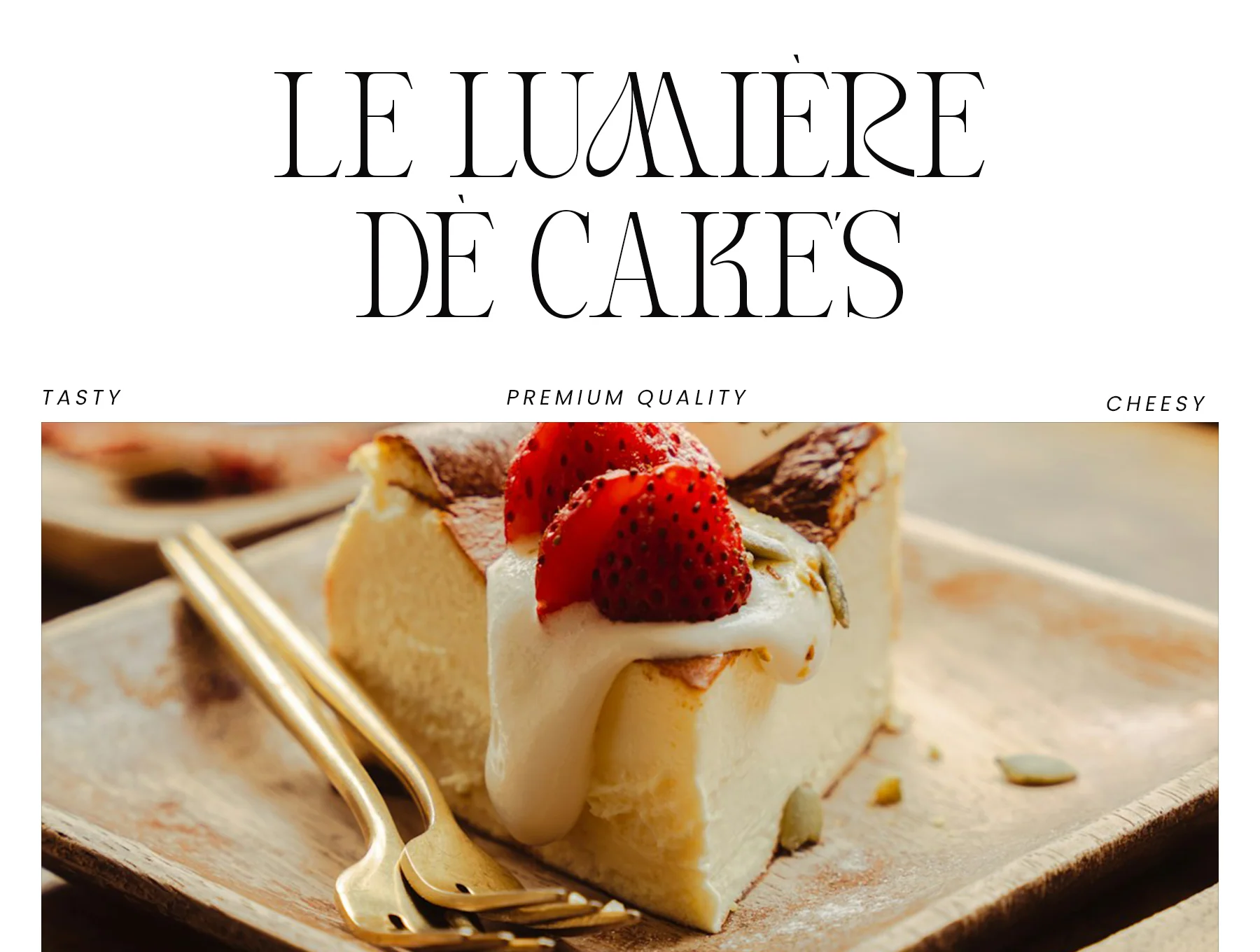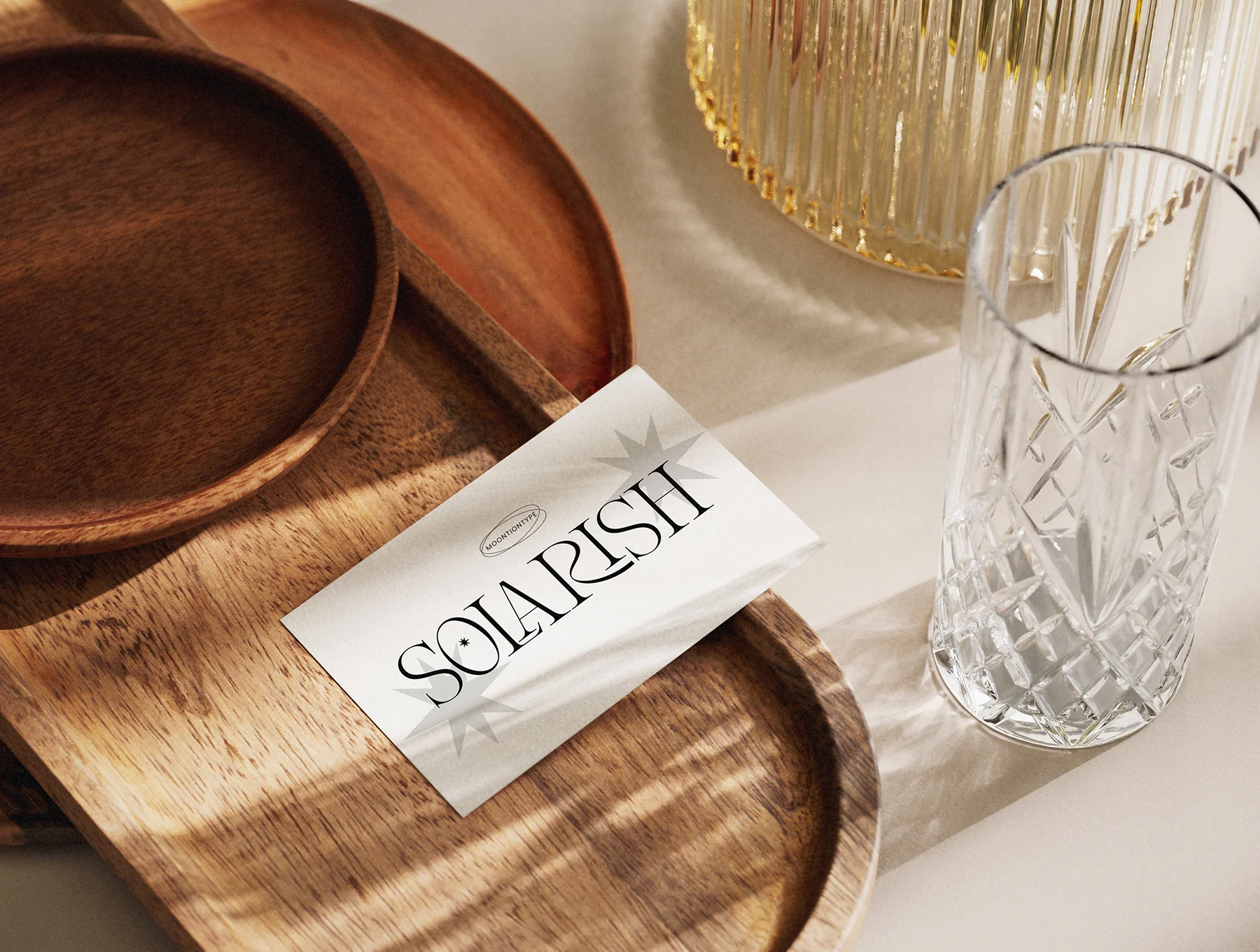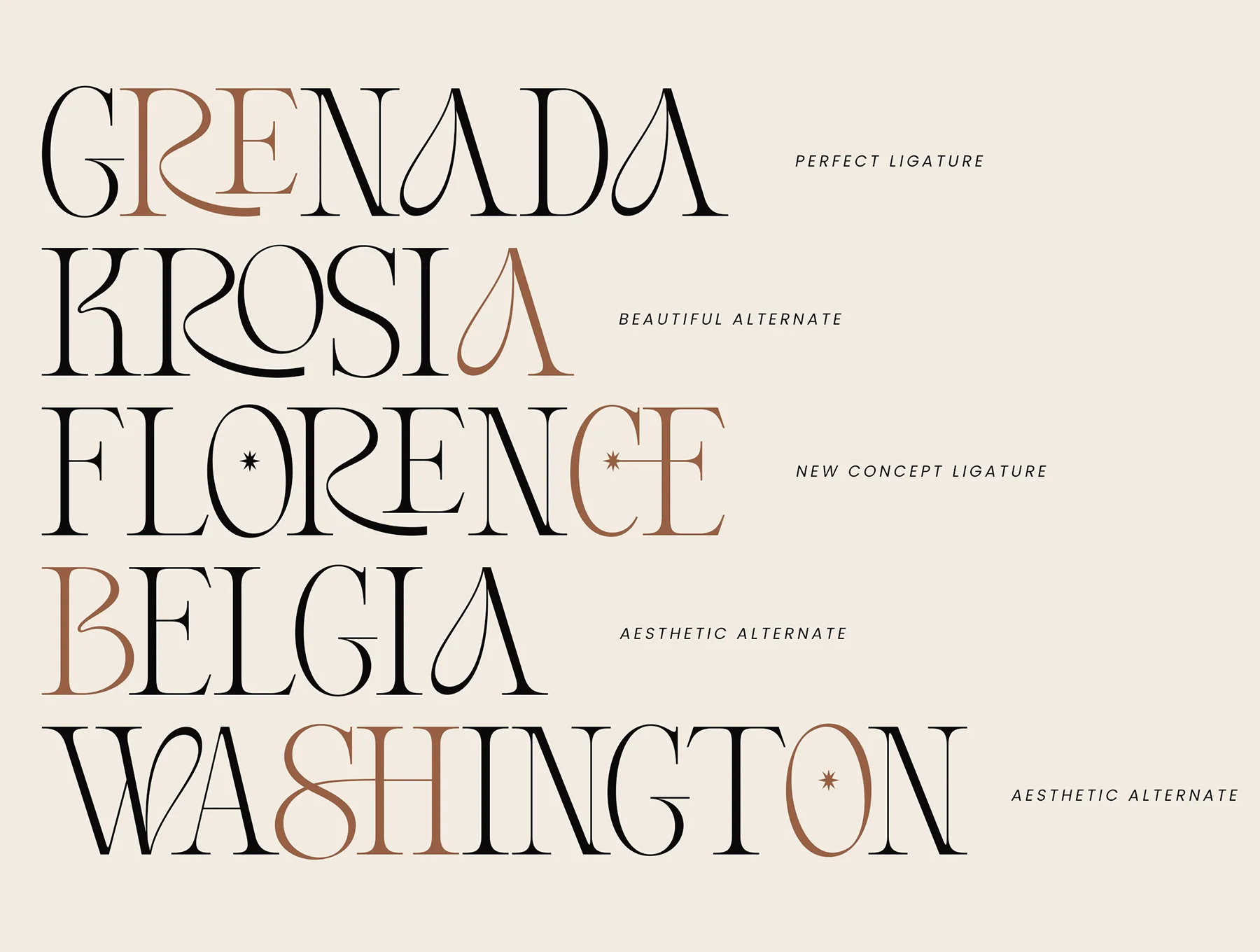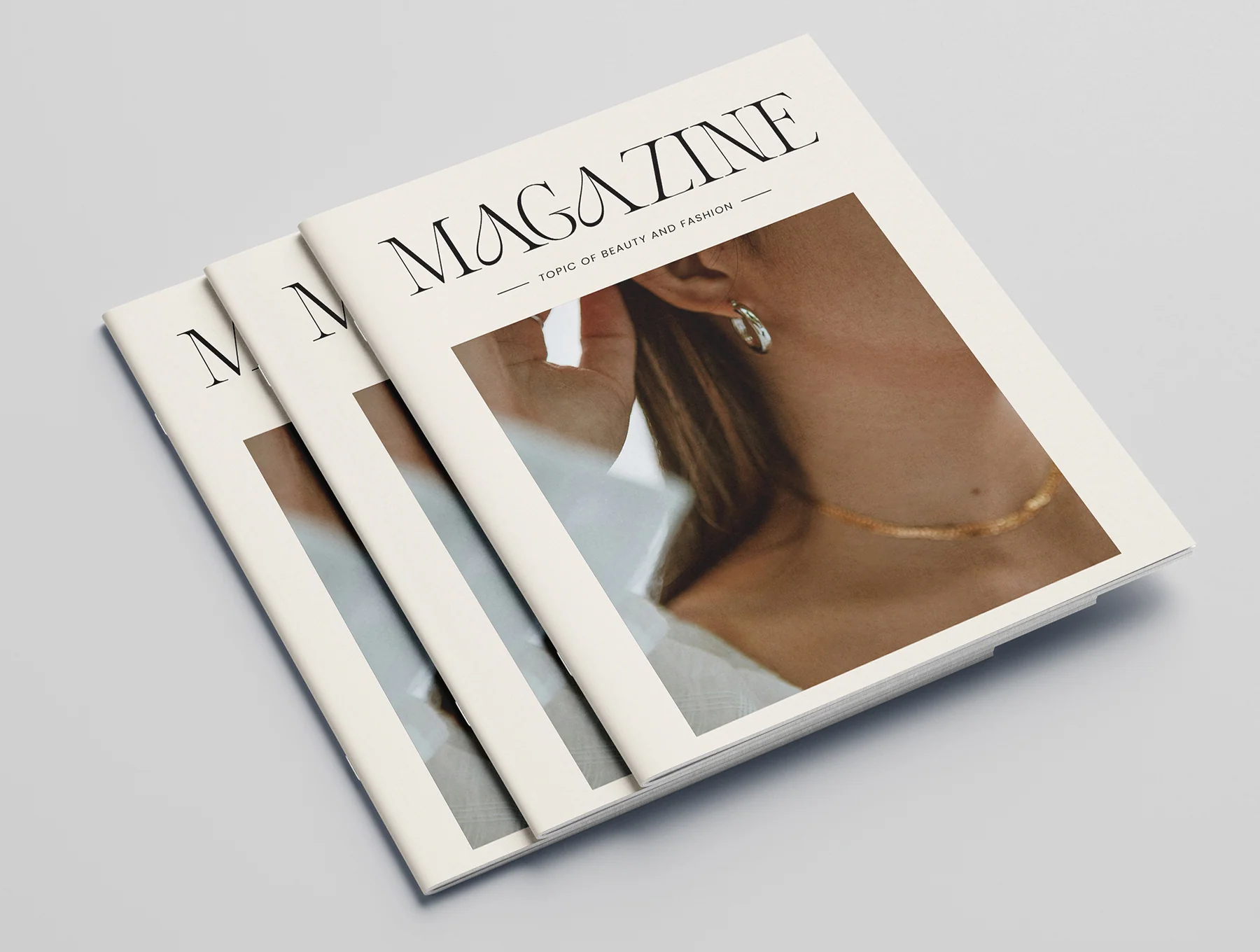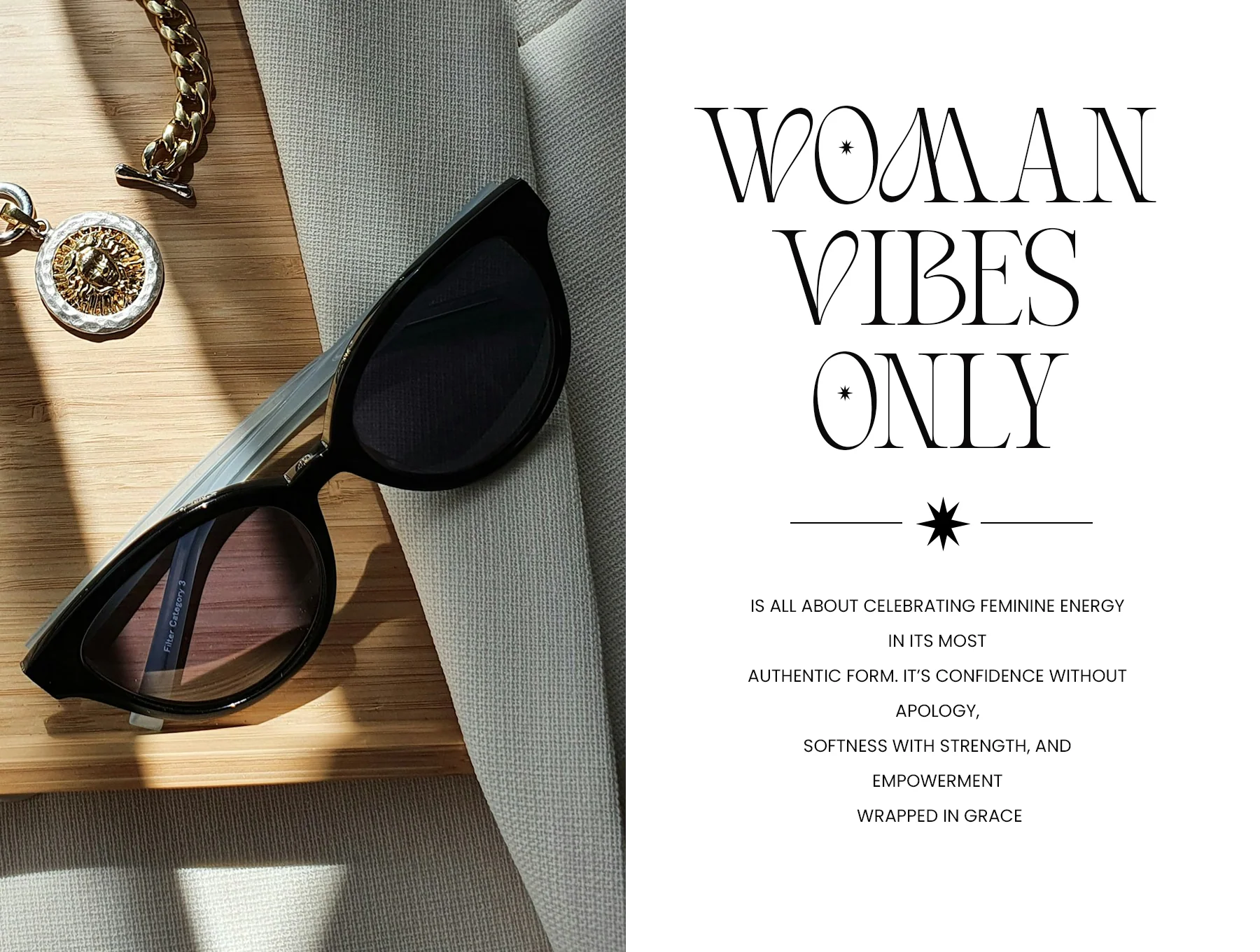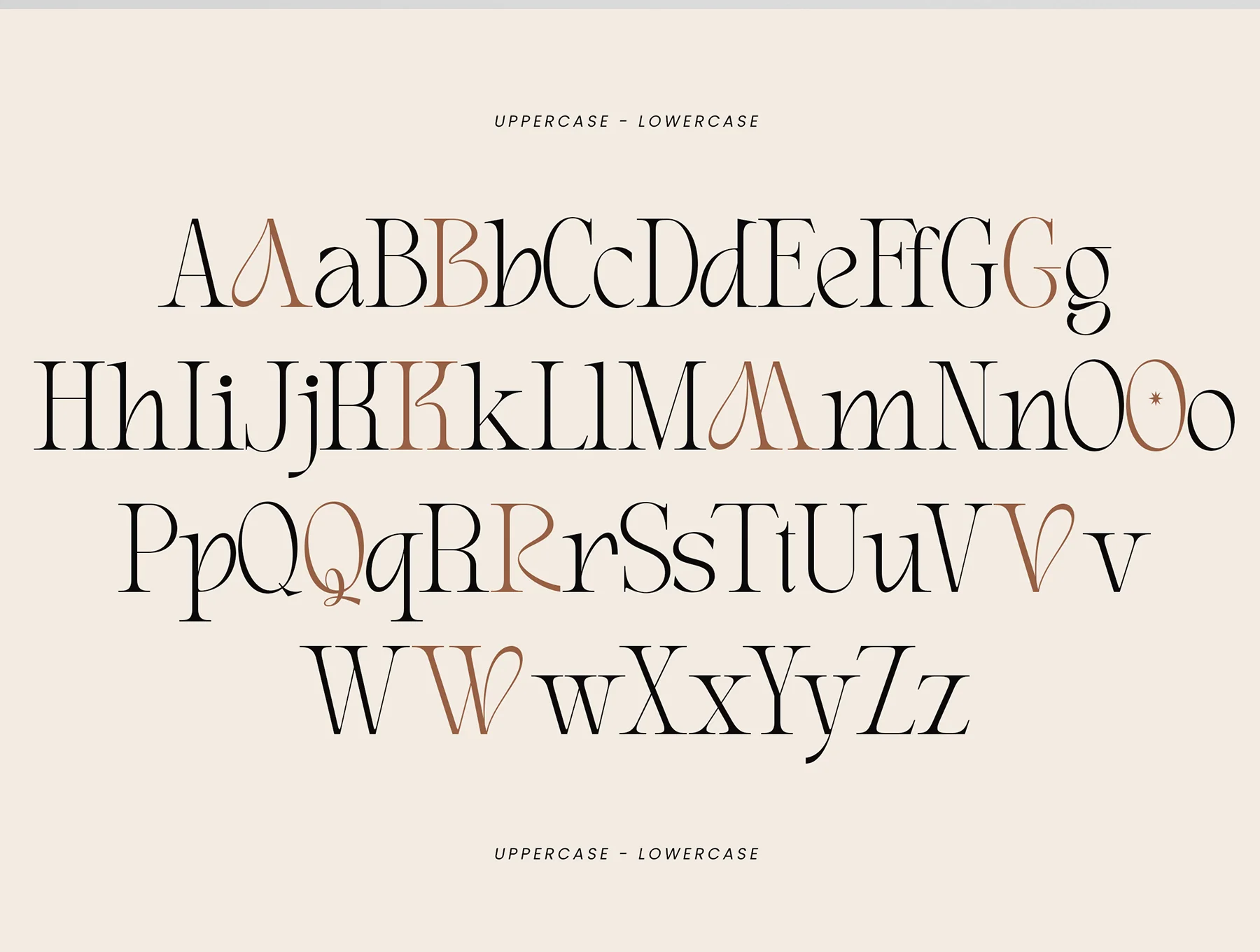
Dream Morish Font
Serif Display Typeface
Caps & small letters
Numbers & punctuation marks
Contemporary alternative
Elegant joined glyph
Dream Morish is a sleek serif display typeface with artistic flair, elegant curves, bold contrast, and distinctive characters for a dreamy, upscale look. Combining timeless serif style with a modern touch, it suits standout branding and refined designs. Includes upper/lowercase, numbers, punctuation, alternates, ligatures, multilingual support, PC/Mac use, and OTF/TTF files.